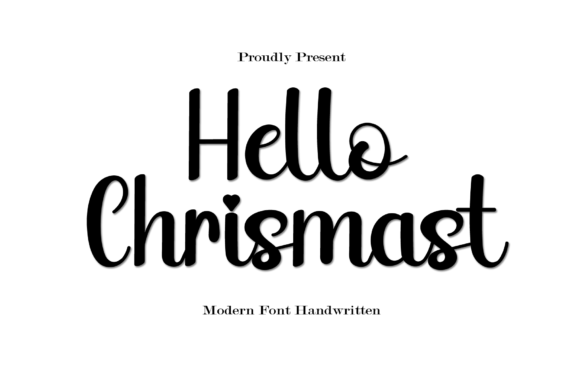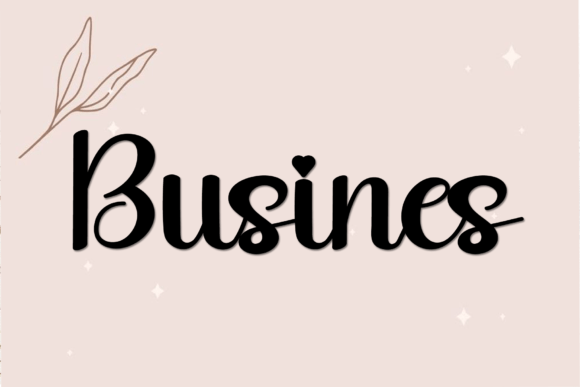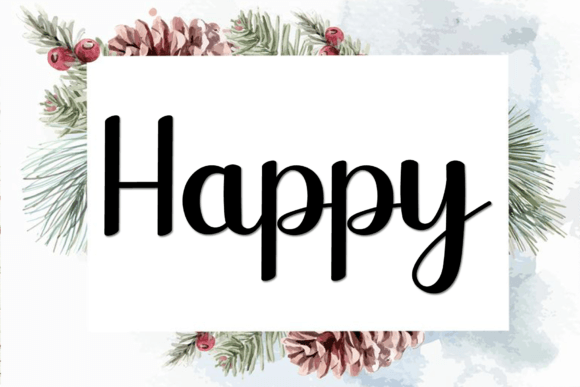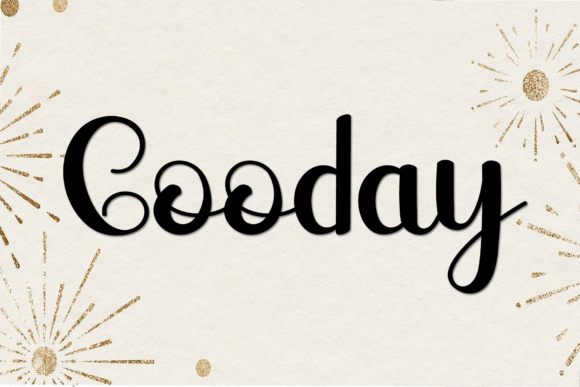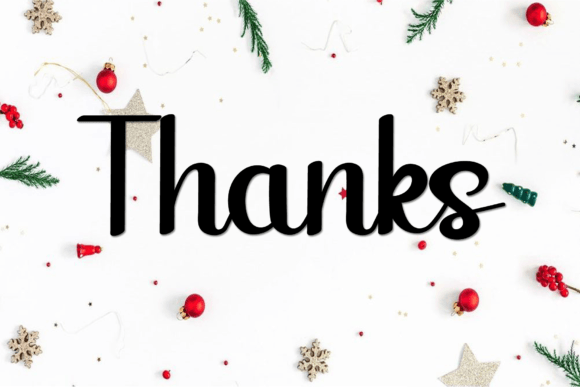
Hello Chrismast Font
About Hello Chrismast Font
Hello Chrismast font is a classic and simple script typeface crafted with a random and freestyle style. This unique font offers a natural and authentic handwritten look, making it an excellent choice for a wide range of creative applications. Its versatile design blends timeless elegance with modern flair, ensuring your projects stand out with personality and charm.
Classic Script with Freestyle Flair
Hello Chrismast font combines classic script elements with a relaxed, freestyle execution. This mix creates a fresh, approachable feel while maintaining the sophistication of traditional calligraphy. Whether you’re designing logos, headlines, or brand identities, this font adds a genuine handcrafted touch that connects well with audiences.
Versatile Uses Across Creative Projects
This font works beautifully in numerous contexts. Use it to craft compelling logotypes or attention-grabbing headlines. It fits perfectly within corporate identities and brand materials, especially for the apparel industry. Hello Chrismastfont also suits posters, music covers, movies, games, magazines, books, comics, cartoons, and online platforms such as YouTube and Instagram. Additionally, it adapts well to website headings and digital content, making it a versatile asset for any designer.
Key Features and Benefits
Hello Chrismastfont offers clean readability with its simple yet stylish design. Its freestyle nature adds an organic touch, giving your work a personalized feel without compromising professionalism. This makes it ideal for projects that demand both elegance and creativity.
Why Choose Hello Chrismast Font?
Choosing Hello Chrismastfont means embracing a versatile and classic script that elevates your designs with a freestyle twist. It is perfect for designers and brands aiming to create memorable, authentic visuals. Whether you’re working on apparel branding, editorial layouts, or social media graphics, Hello Chrismastfont brings warmth and sophistication to every project.